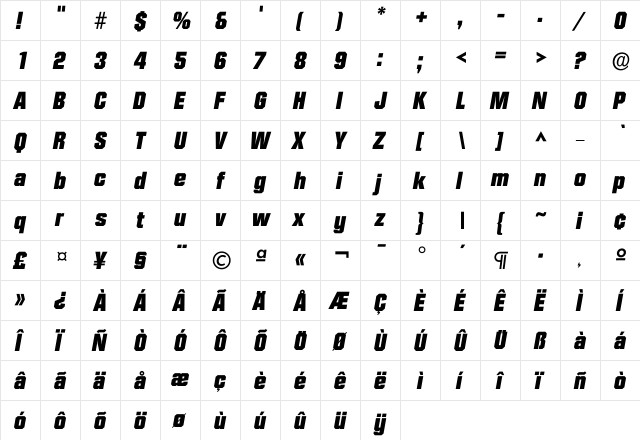
Idiamante ExtraBold
Design Context for Idiamante Typeface
Idiamante is a composed and adaptable typeface that performs quietly and consistently across a wide range of design contexts. The heavy weight commands attention and anchors typographic hierarchies.
Pro Tip: Use Idiamante in both headline and body roles to test its range before committing to a single application.